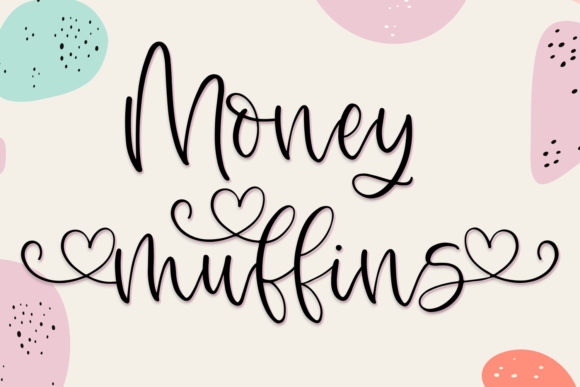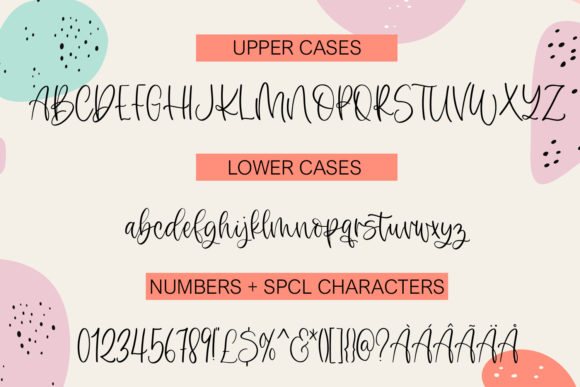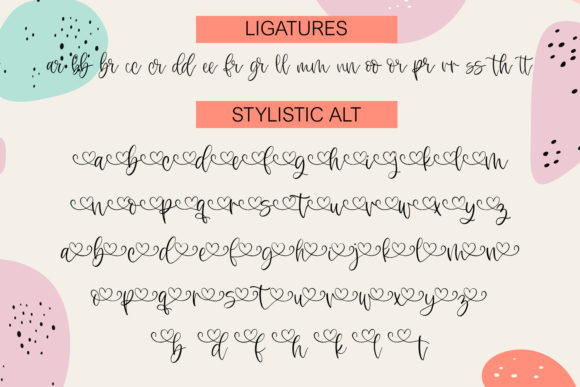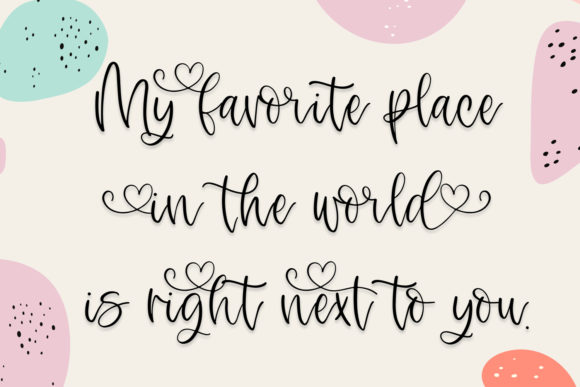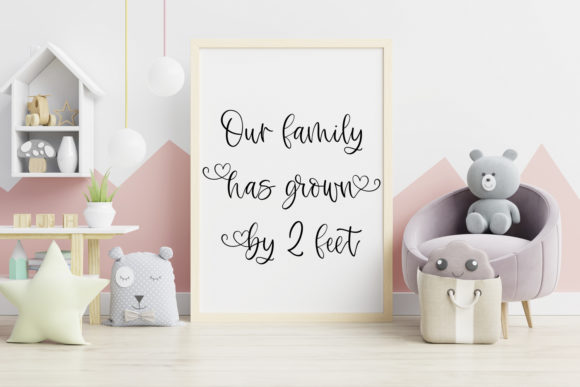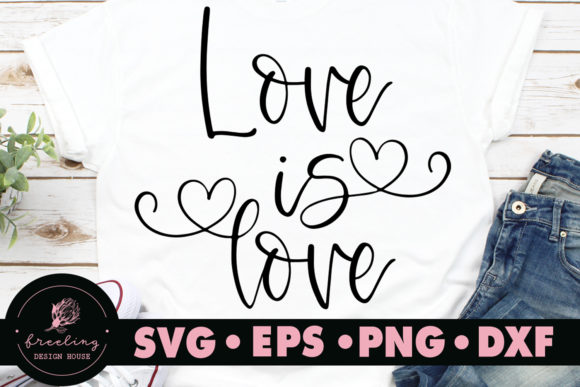
Money Muffins Font
About Money Muffins Font
Money Muffins is a relaxed and flowing handwritten font. It is PUA encoded which means you can access all of the glyphs and swashes with ease! It features a varying baseline, smooth lines, gorgeous glyphs and stunning alternates. Fall in love with its incredibly versatile style and use it to create spectacular designs!